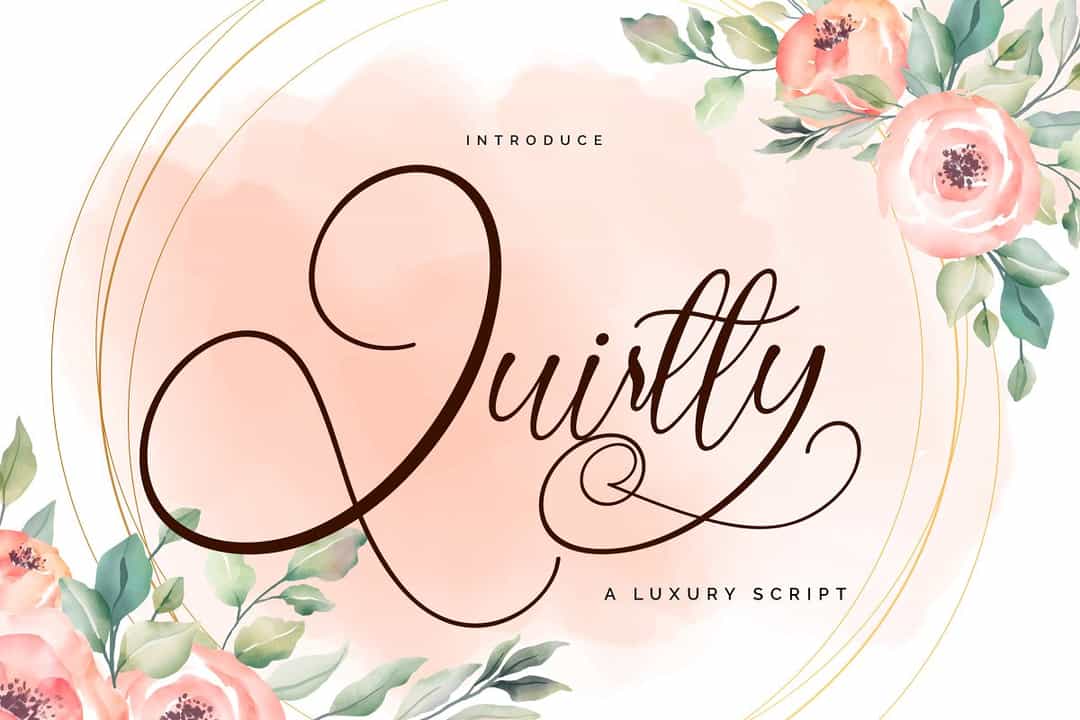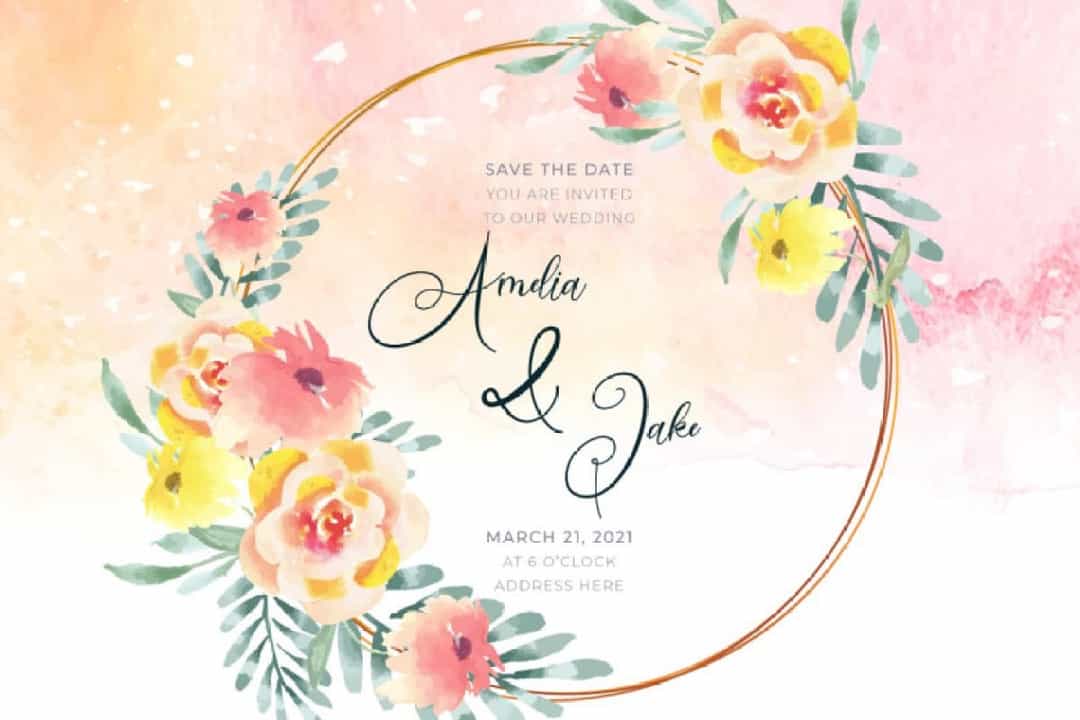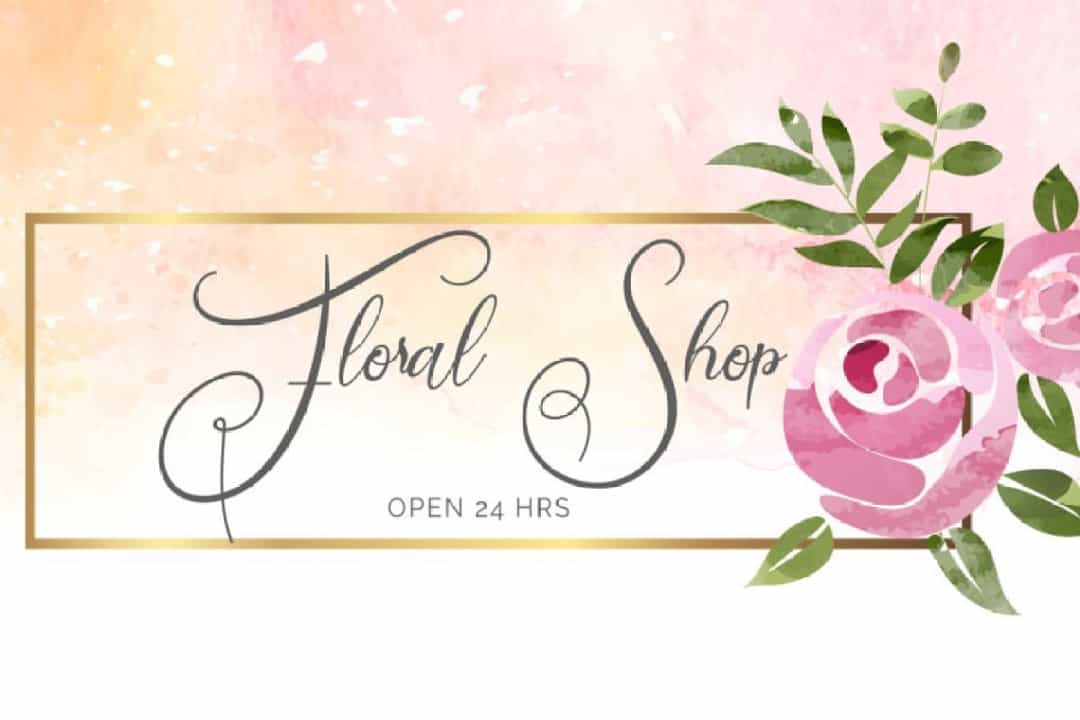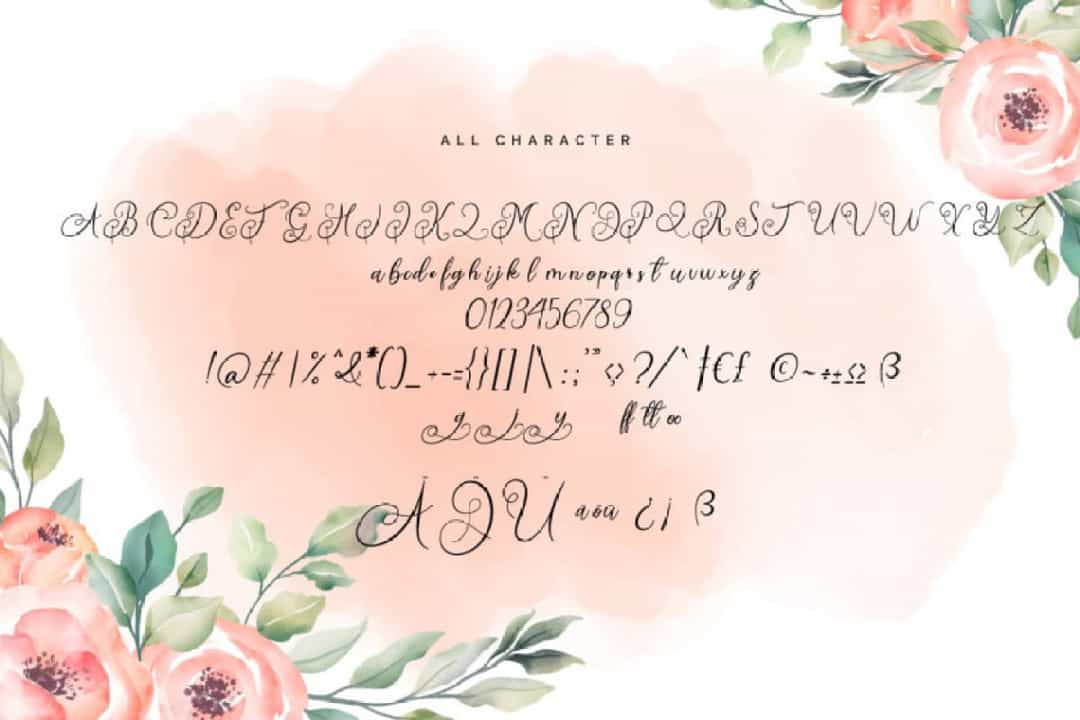
Quirtty is a stylish calligraphy font which has casual yet pretty swashes that gives a real punch to the designs. It is suitable for logos packaging for products wedding invitations branding headlines labels signage signatures books book covers posters quotes etc it can be used in a number of fields and sectors.